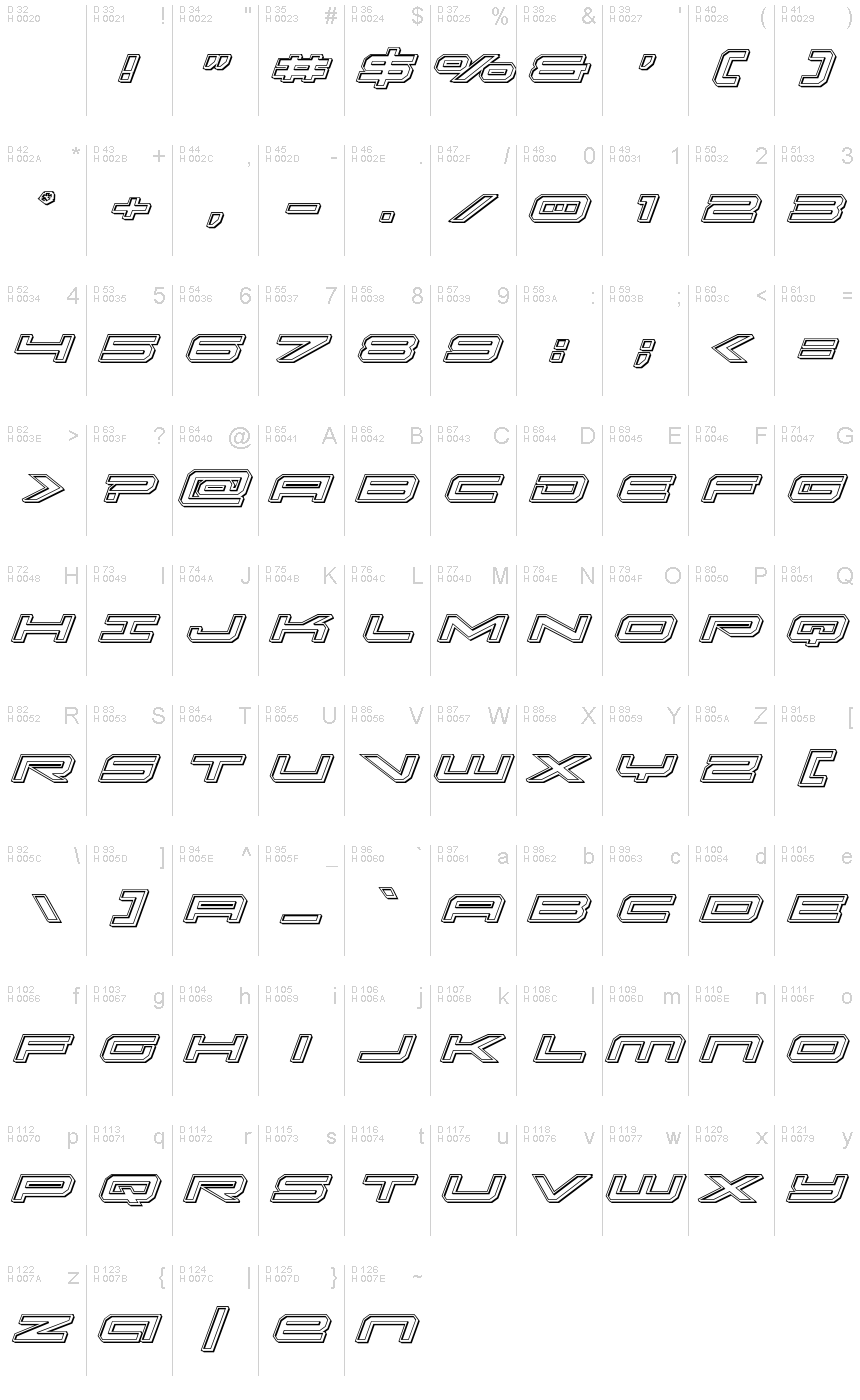
Oramac Engraved Italic
Oramac Engraved Italic is a captivating display font that exudes a futuristic, avant-garde flair. Designed by Daniel Zadorozny, this expanded font showcases a striking balance of sharp, angular lines and graceful, organic curves.
The engraved effect lends a sense of depth and dimensionality, elevating the overall aesthetics. This unique blend of modern and artisanal elements makes Oramac Engraved Italic a versatile choice for a wide range of design applications, from bold headlines and branding to eye-catching poster art and digital interfaces.
Its distinctive character and legibility make it a compelling option for designers seeking to create a strong, memorable visual impact.